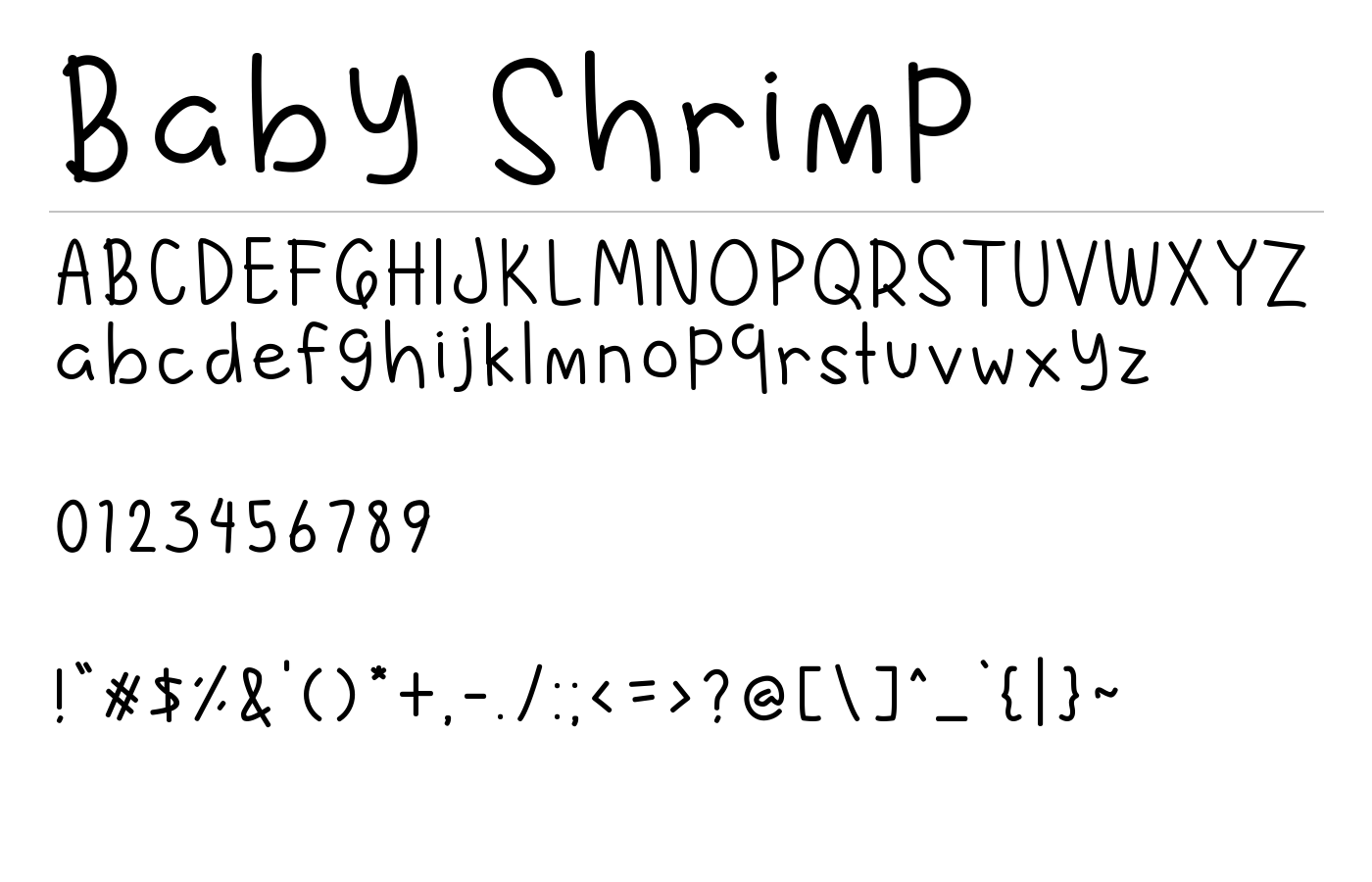
Baby Shrimp is a playful, hand-drawn sans serif font with a casual and friendly feel. Its tall, narrow letterforms and uneven stroke widths give it a charming, childlike character that works wonderfully for informal designs, kids’ materials, and creative projects. This font shines in settings where a lighthearted and approachable tone is desired, such as invitations, posters, and branding aimed at younger audiences or whimsical themes.
Baby Shrimp Font
About Baby Shrimp Font